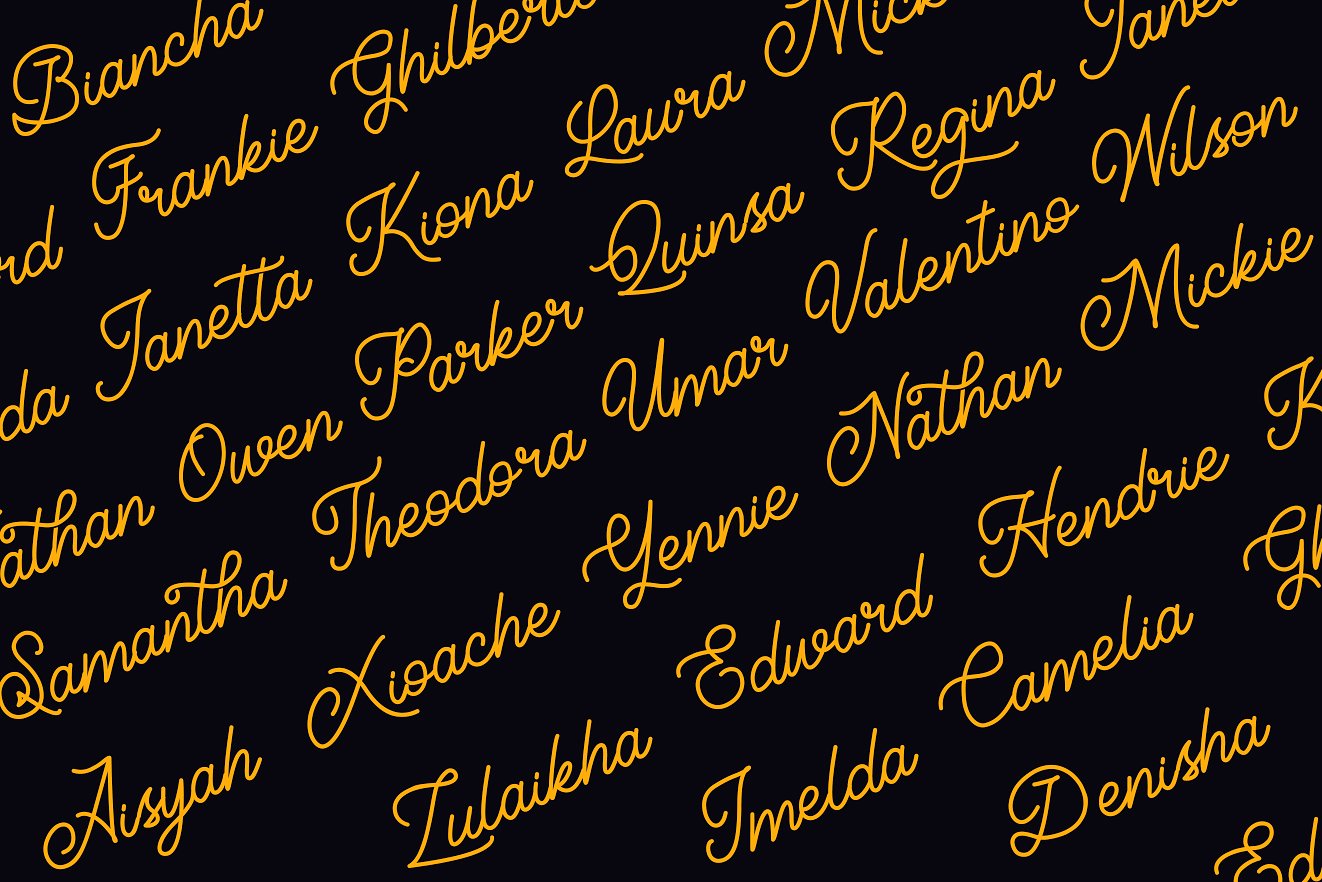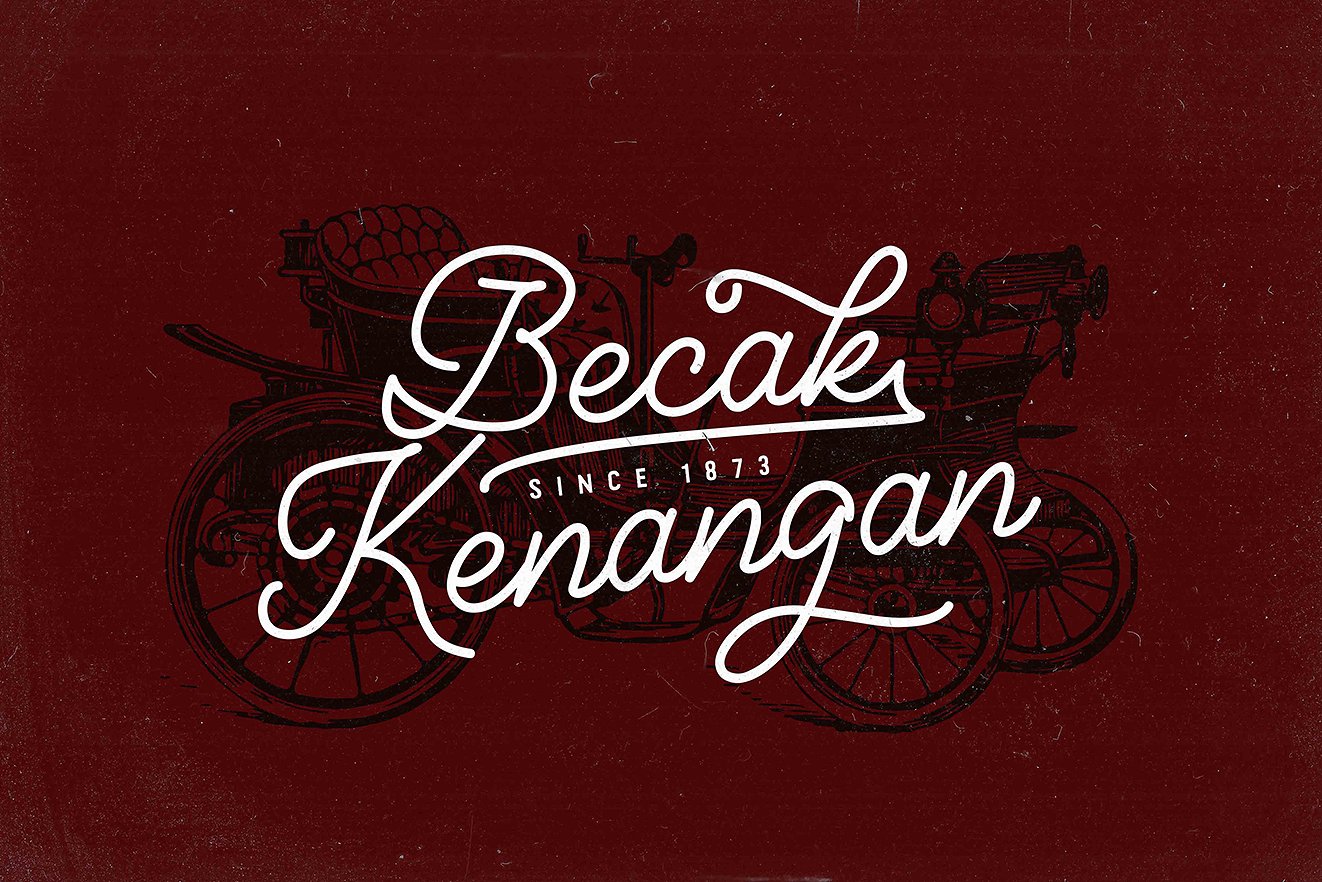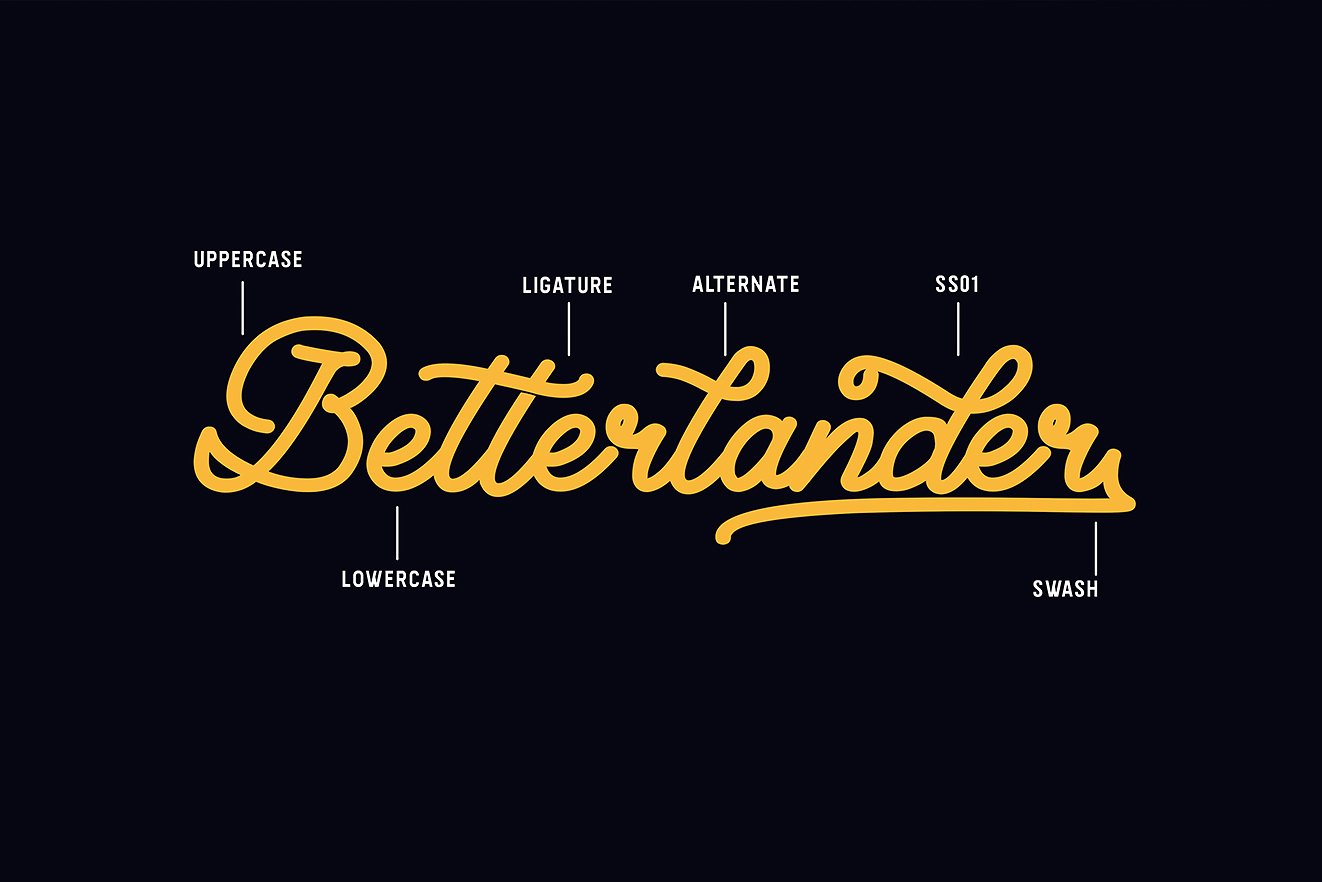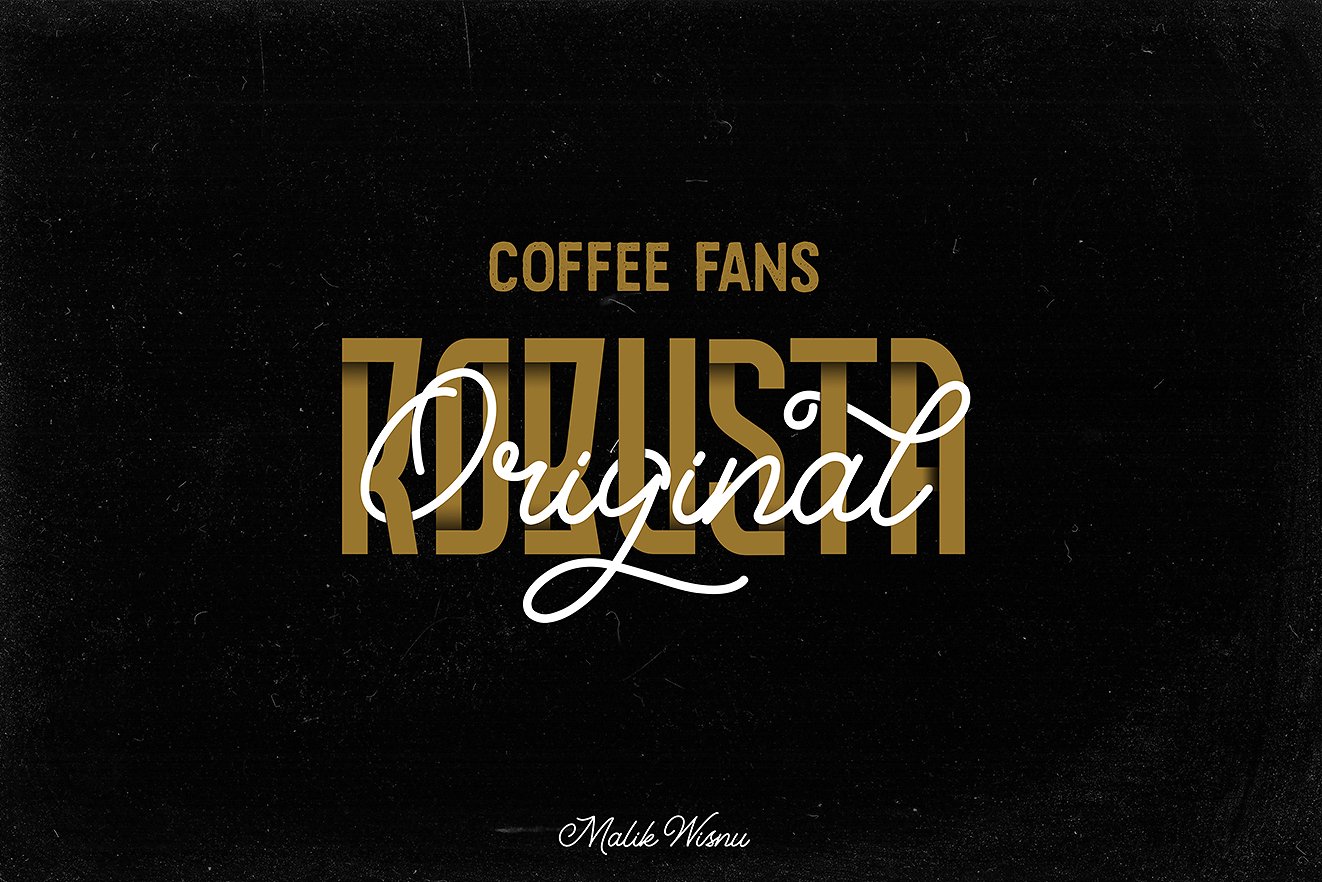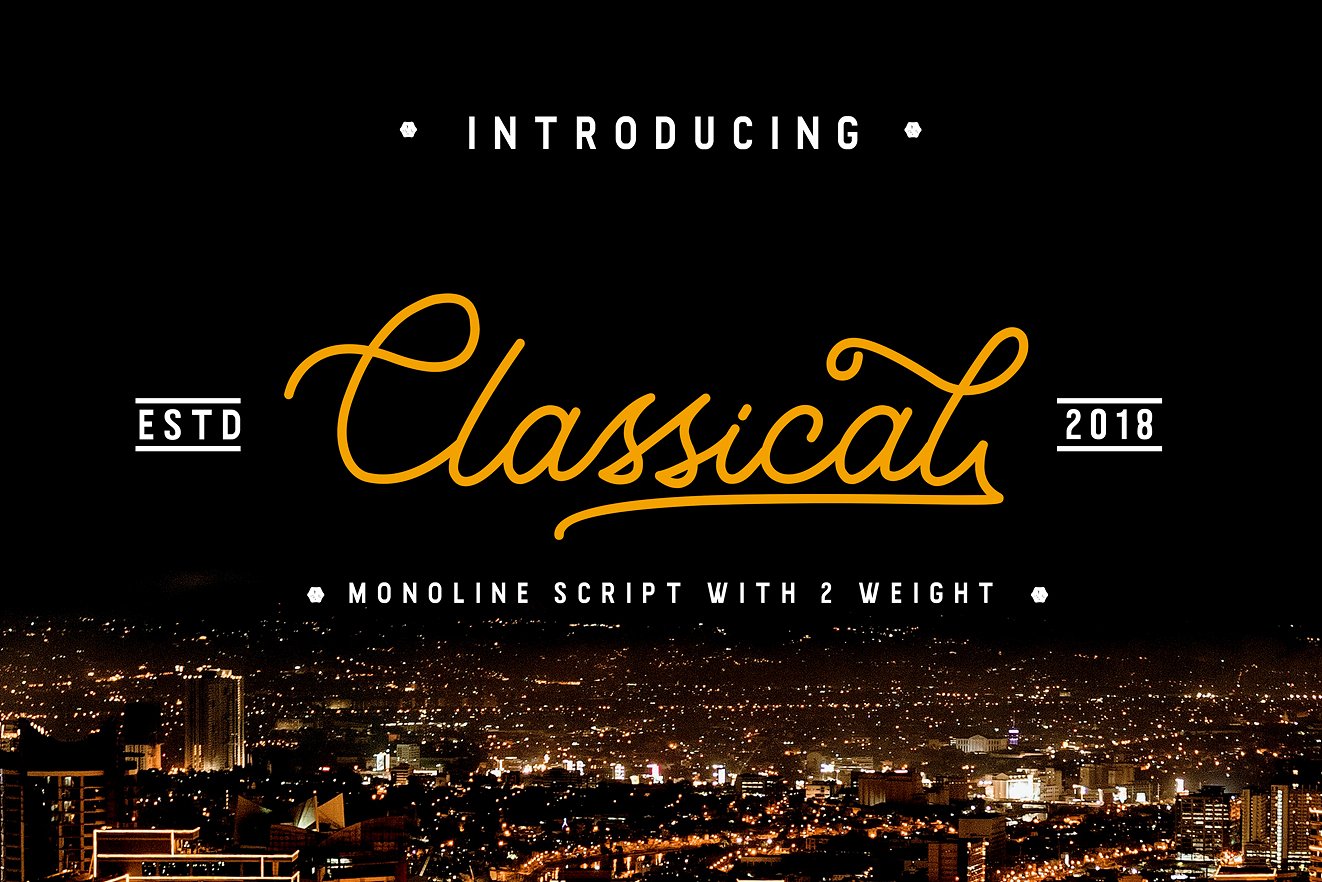
Classical Monoline Script Font
Hello Everybody Font Lovers!  A monoline script with 2 weight. Introducing Classical Font! Classical designed and shared by MLKWSN studios. Classical – Monoline Script made with naturally handwritten.it’s Best monoline typeface. Classical font best use for Poster,Wedding, Branding, Logotype and Quotes.